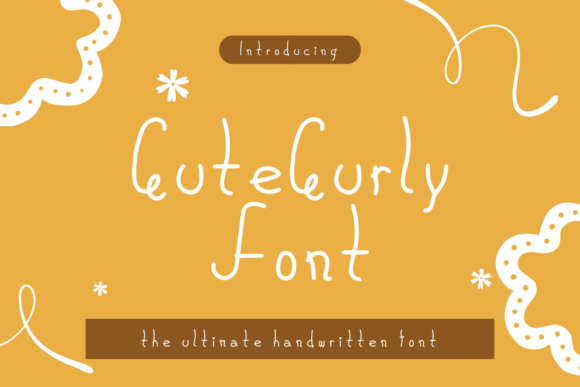
In a world where digital communication dominates, let your words dance with grace and charm with "CuteCurly" - the font engineered to spark joy and ignite imagination. This enchanting script font, crafted by the visionary minds at Conceptty, is a true masterpiece that transforms the ordinary into the extraordinary.
With its captivating curves and playful strokes, "CuteCurly" breathes life into your designs, making them pop with a captivating elegance. Its tender touch adds a layer of magic to invitations, greeting cards, posters, and any project that craves a sprinkle of whimsy.
The perfect companion for heartfelt letters and heartfelt messages, "CuteCurly" imbues your words with a touch of romance and playfulness. Let your pen glide across the page as the font's whimsical strokes weave a enchanting narrative, leaving your loved ones spellbound.
"CuteCurly" is more than just a font; it's an expression of your creativity, a reflection of your unique style. Unleash your imagination and experiment with this remarkable font, creating visual masterpieces that leave an enduring impression. It's the perfect choice for those who seek to add a dash of delight to their designs, making them irresistible to the eyes that behold them.
Join the countless creatives who have embraced "CuteCurly" and witnessed the transformation it brings to their projects. Its captivating nature captivates audiences, leaving them captivated by the sheer beauty of your designs. Experience the magic of "CuteCurly" today and let your creations bloom with an allure that's simply enchanting.